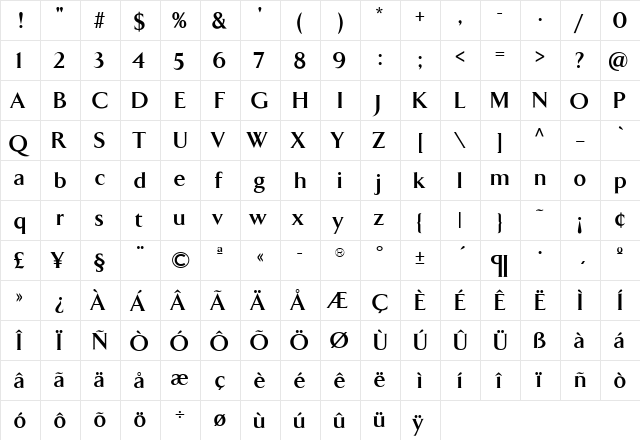
TFArrow Bold
Design Context for TFArrow Typeface
TFArrow offers clean, dependable letterforms without strong stylistic allegiance, making it a practical choice for designers who need flexibility. The heavy weight commands attention and anchors typographic hierarchies.